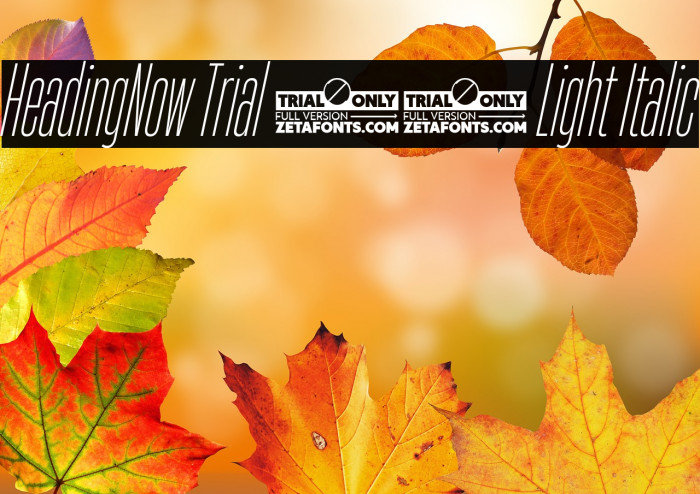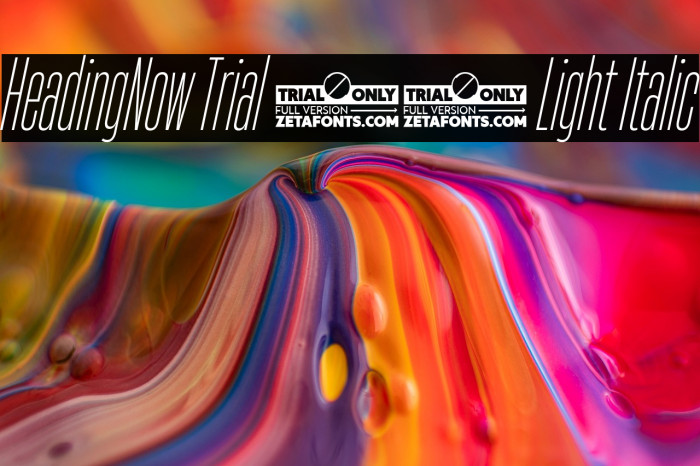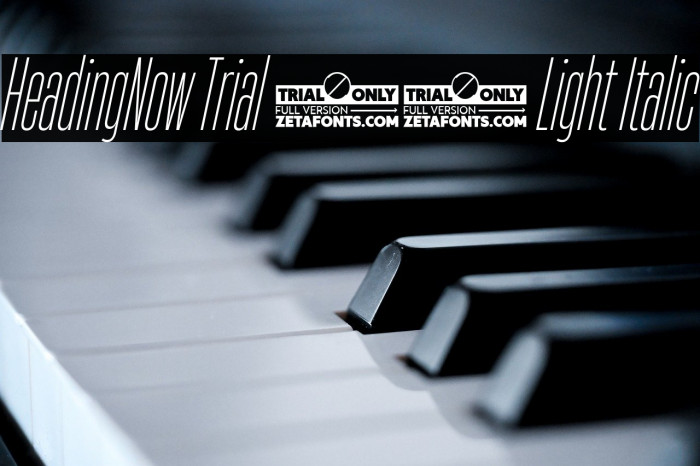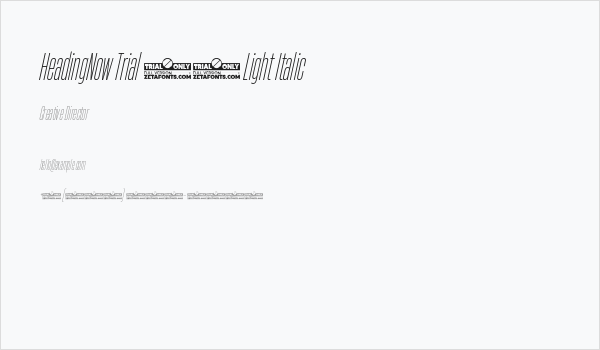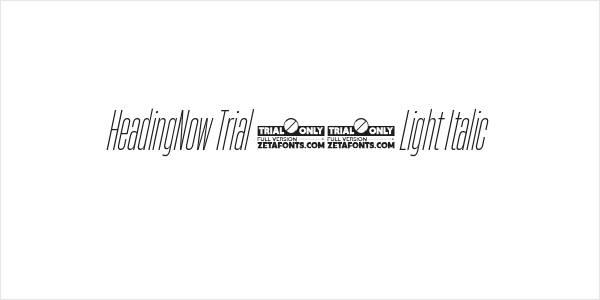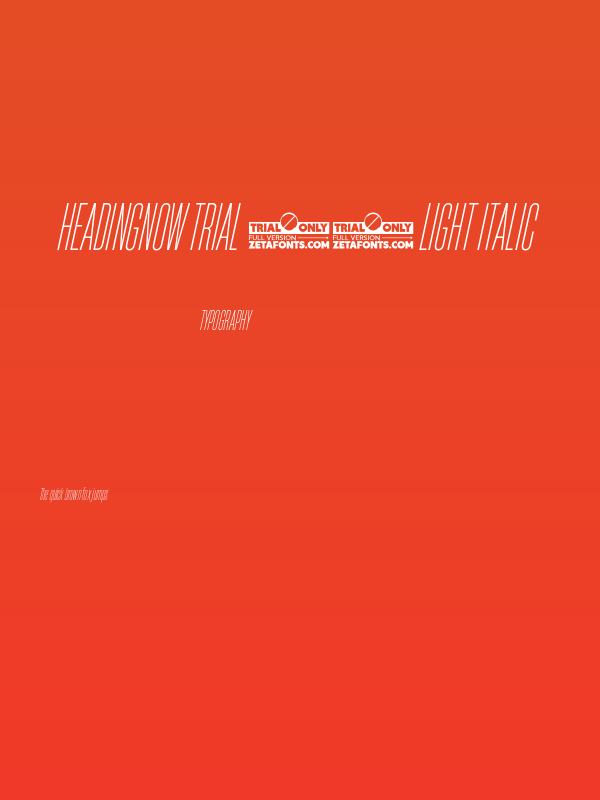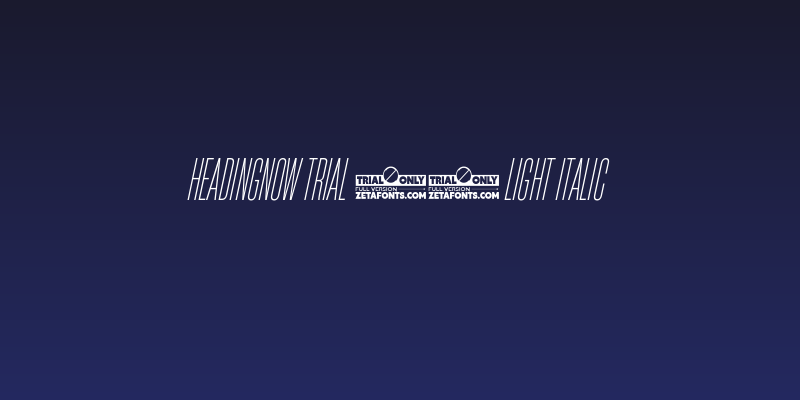
HeadingNow Trial 12 Light Italic Font
HeadingNow Trial 12 Light Italic Description
This font features a sleek and modern design with a distinctly italicized style. The characters are elongated and narrow, giving a sophisticated and elegant appearance. The strokes are consistent in thickness, contributing to a clean and streamlined look. The font maintains a uniformity that enhances readability while adding a touch of flair with its italic slant. The overall impression is one of contemporary elegance, suitable for a variety of design applications.